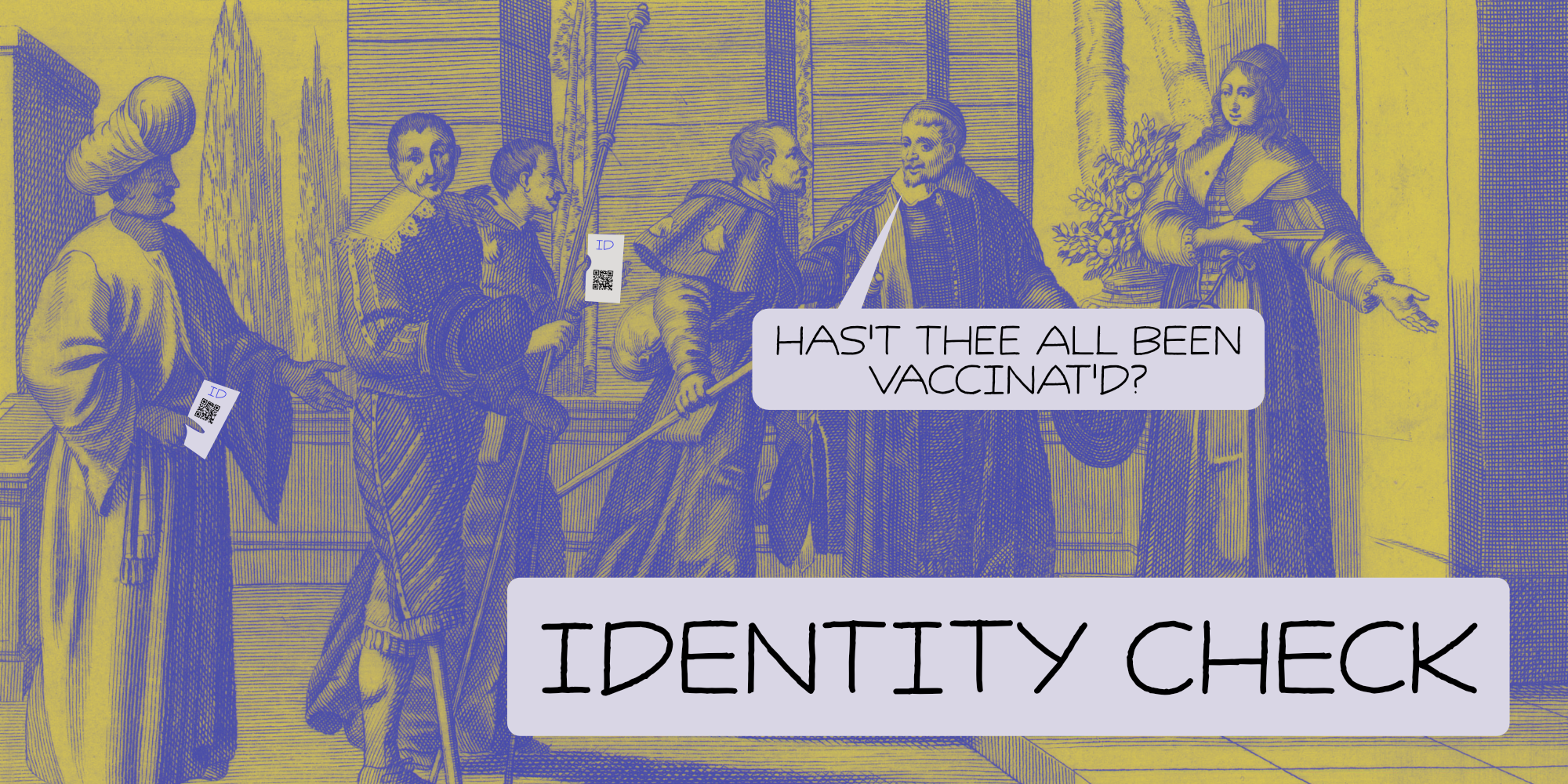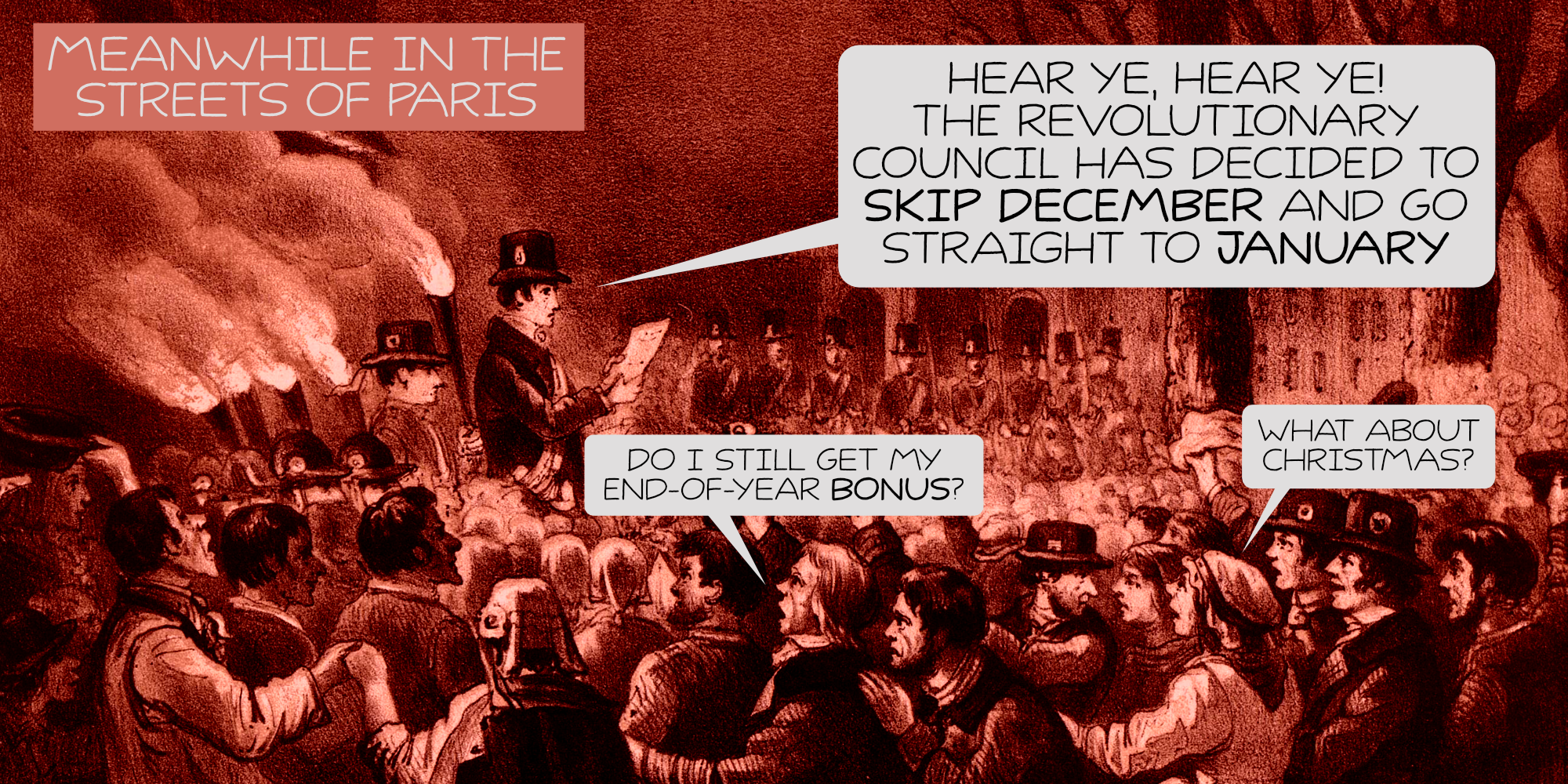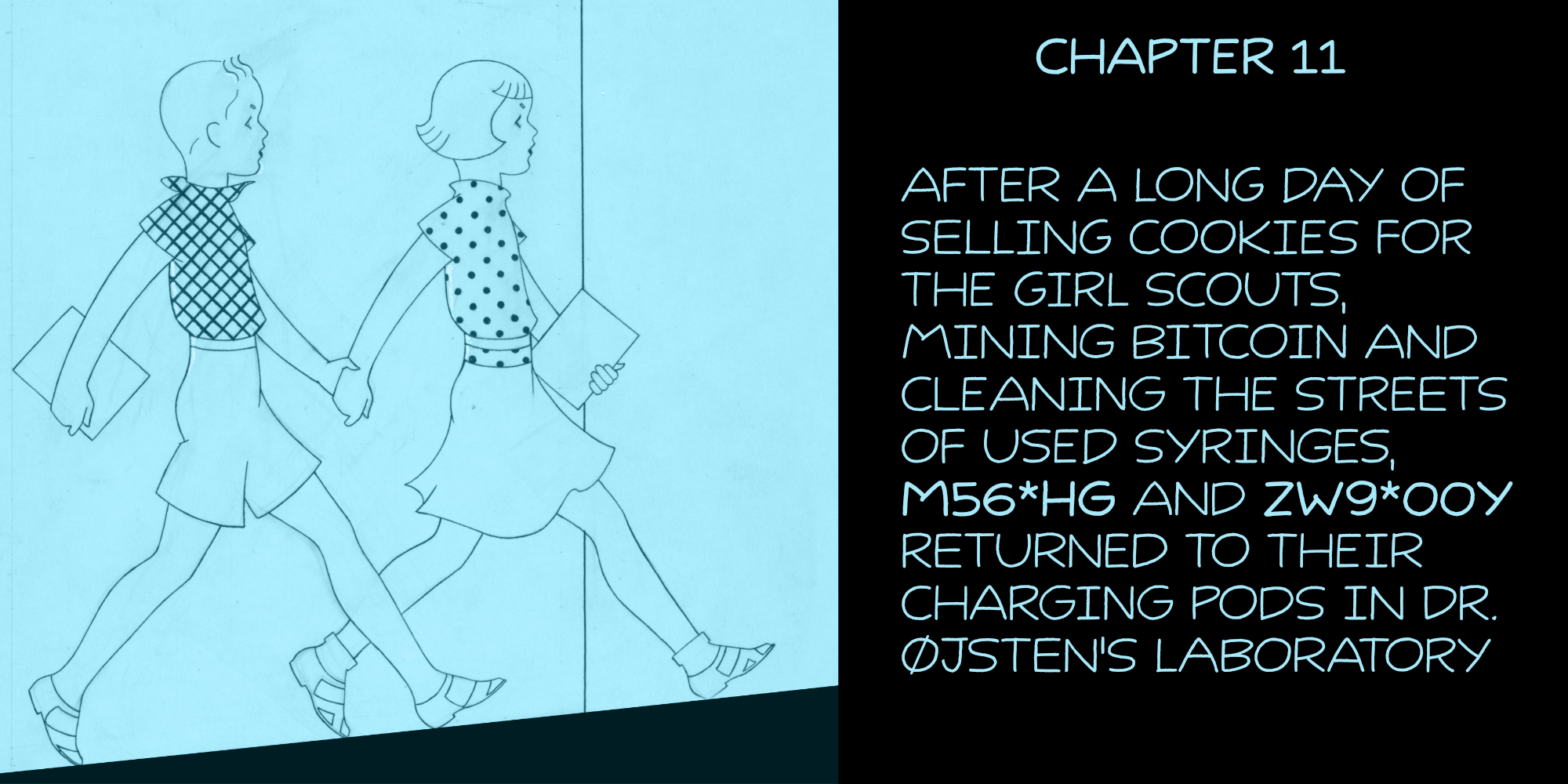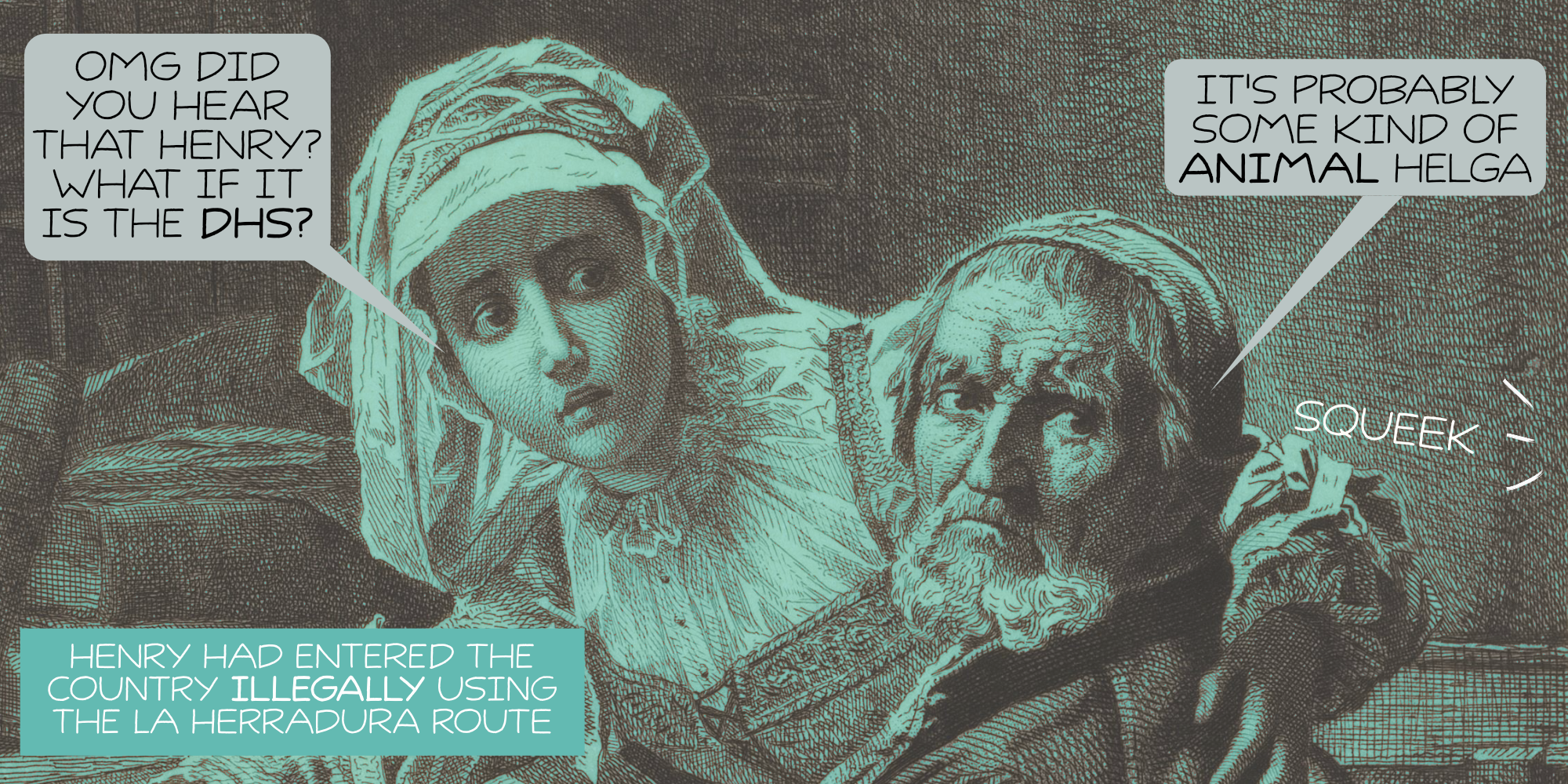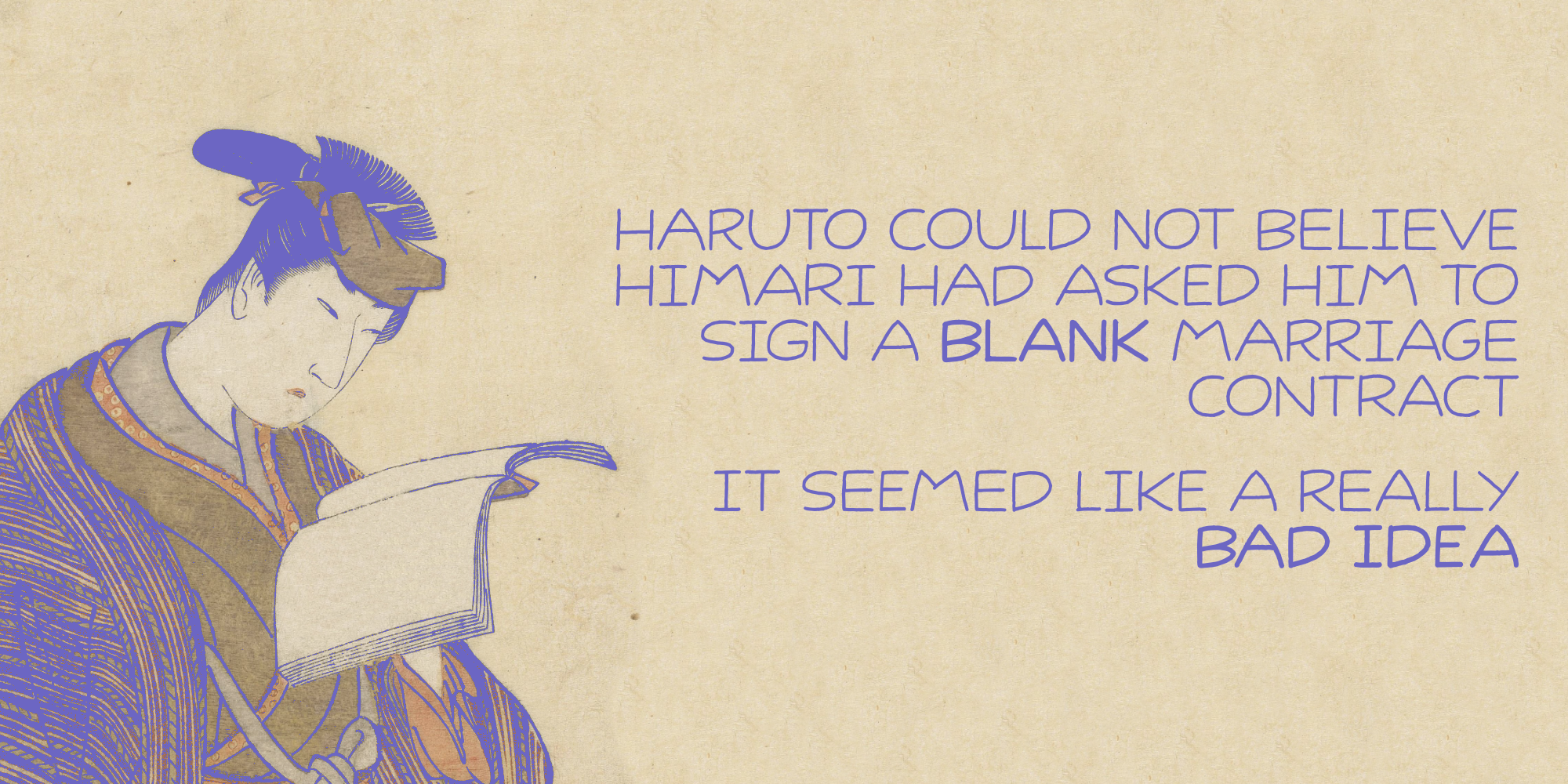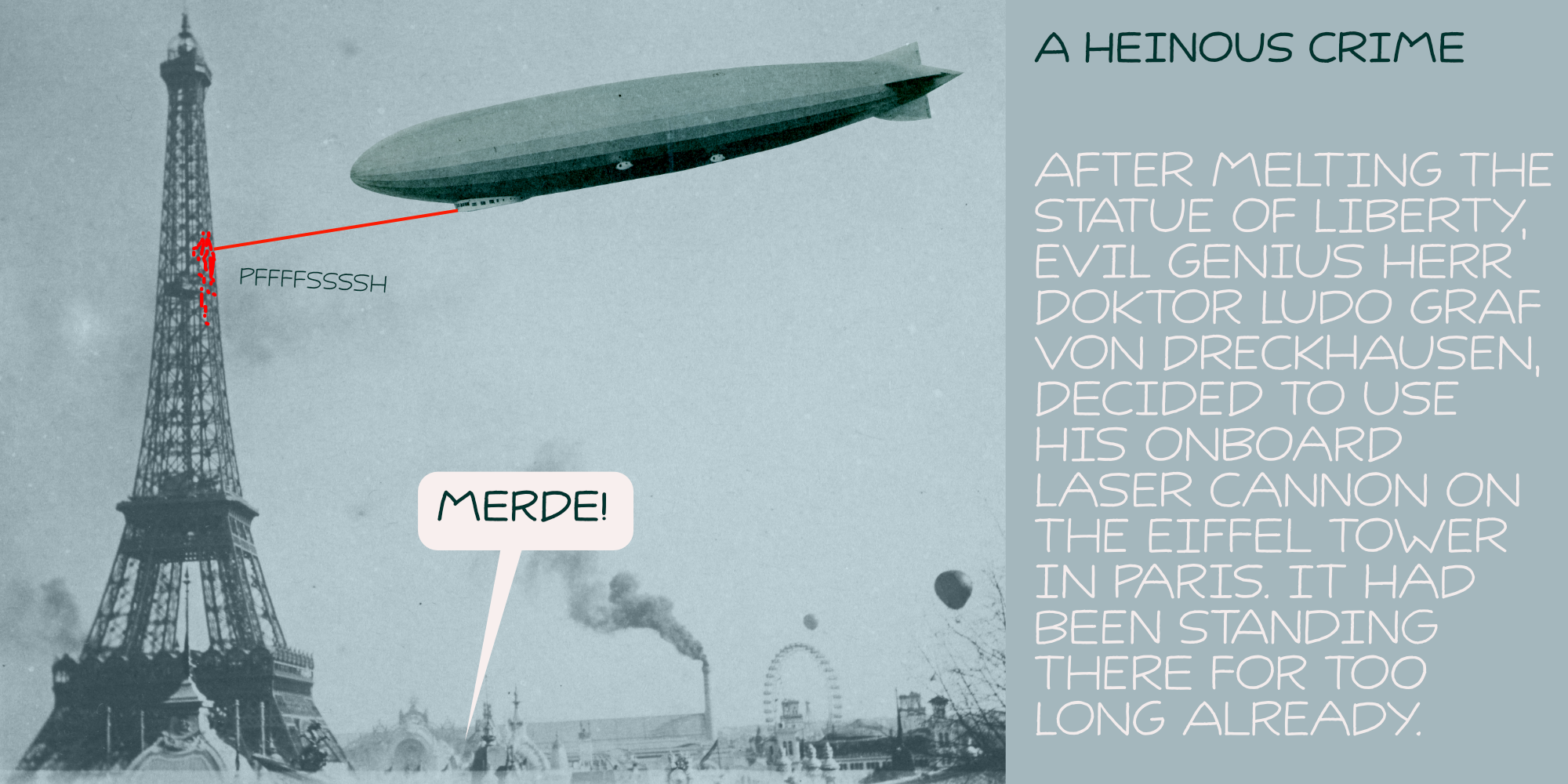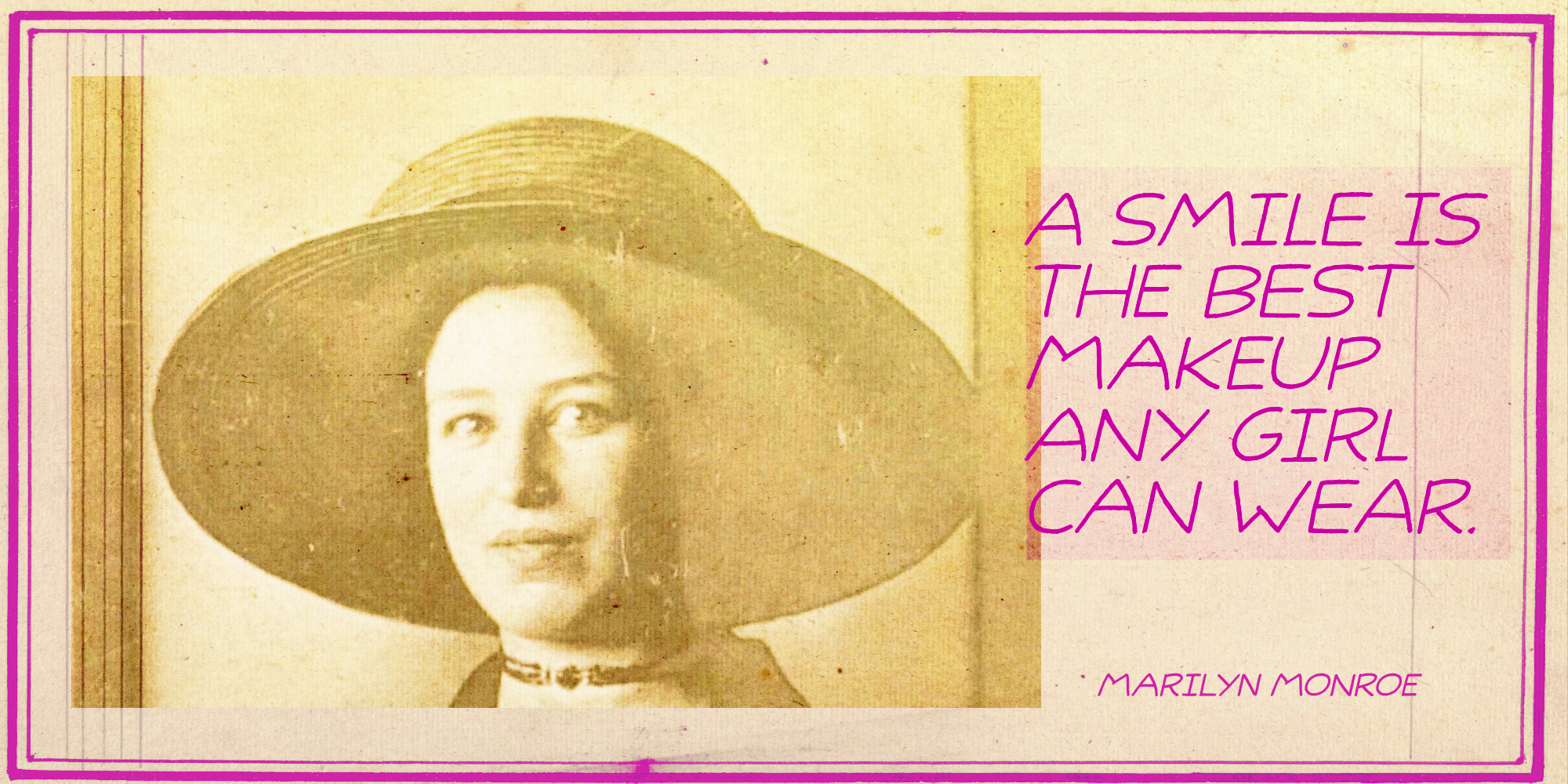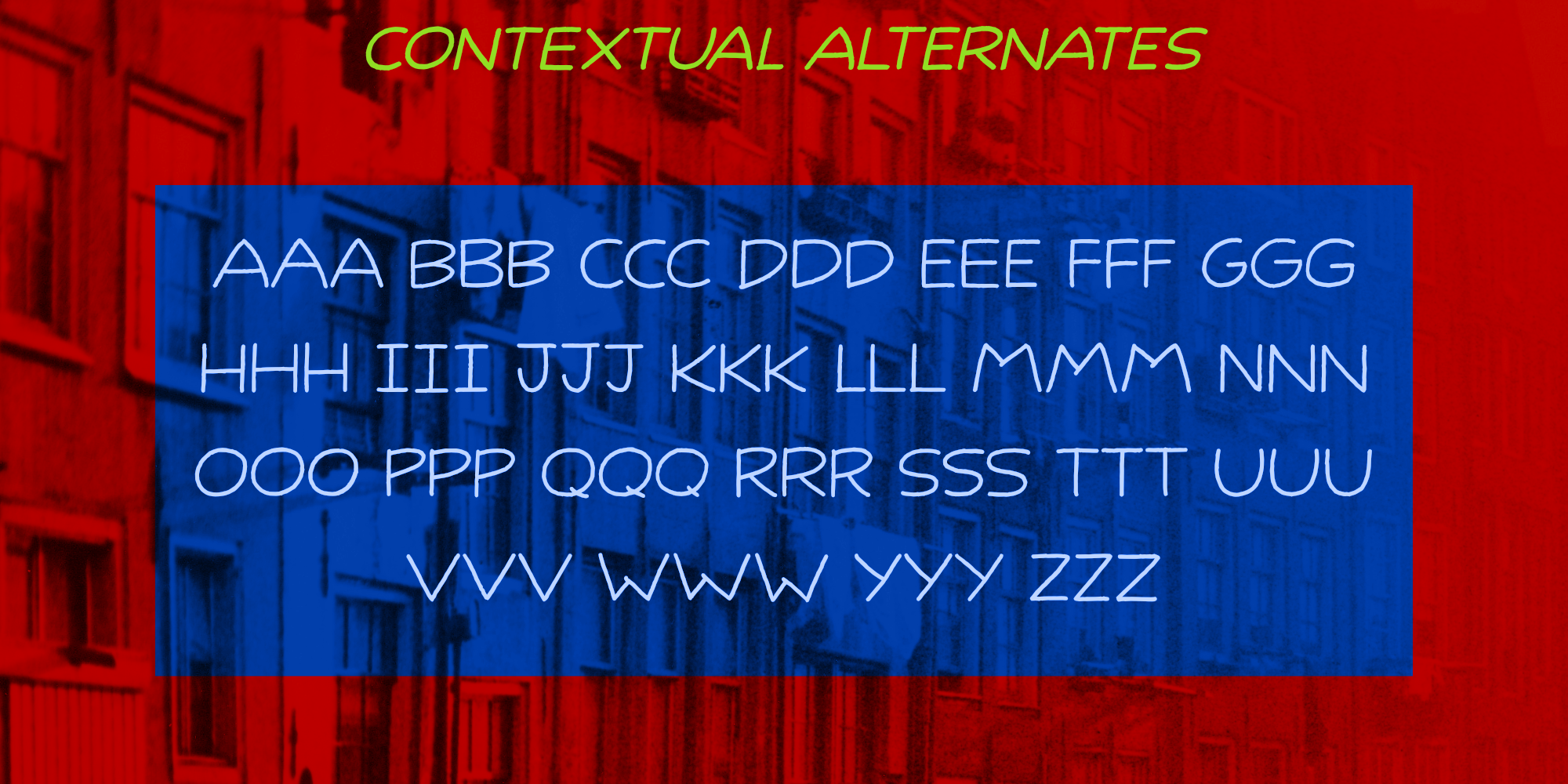
Identity Check (4 fonts)
Identity Check is a comic book style font. The glyphs are wider than I am used to (it seems I AM capable of learning new tricks), but the effect is rather nice.
Identity Check comes with extensive language support, including Cyrillic and Vietnamese. Plus two sets of alternate glyphs, that cycle as you type.